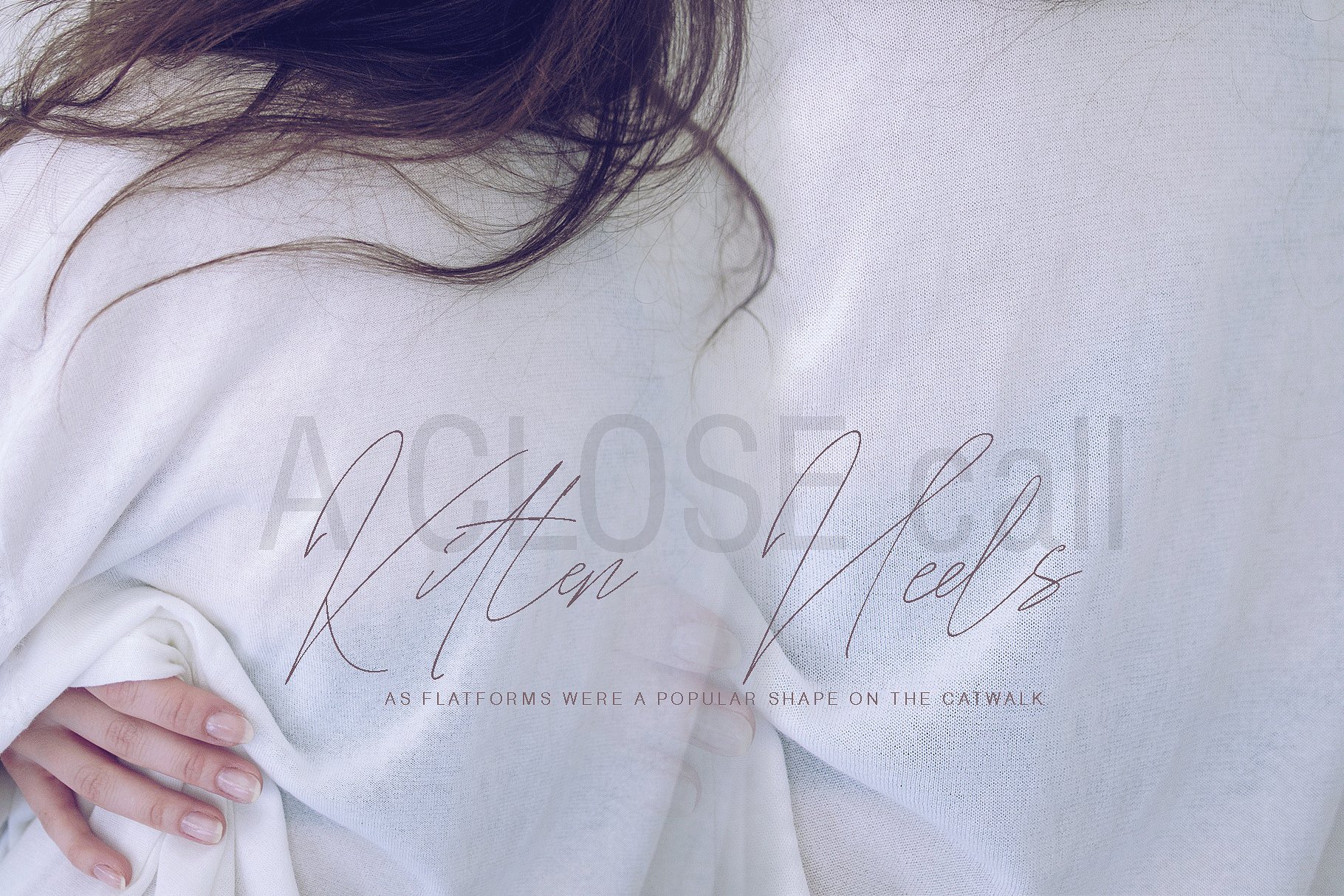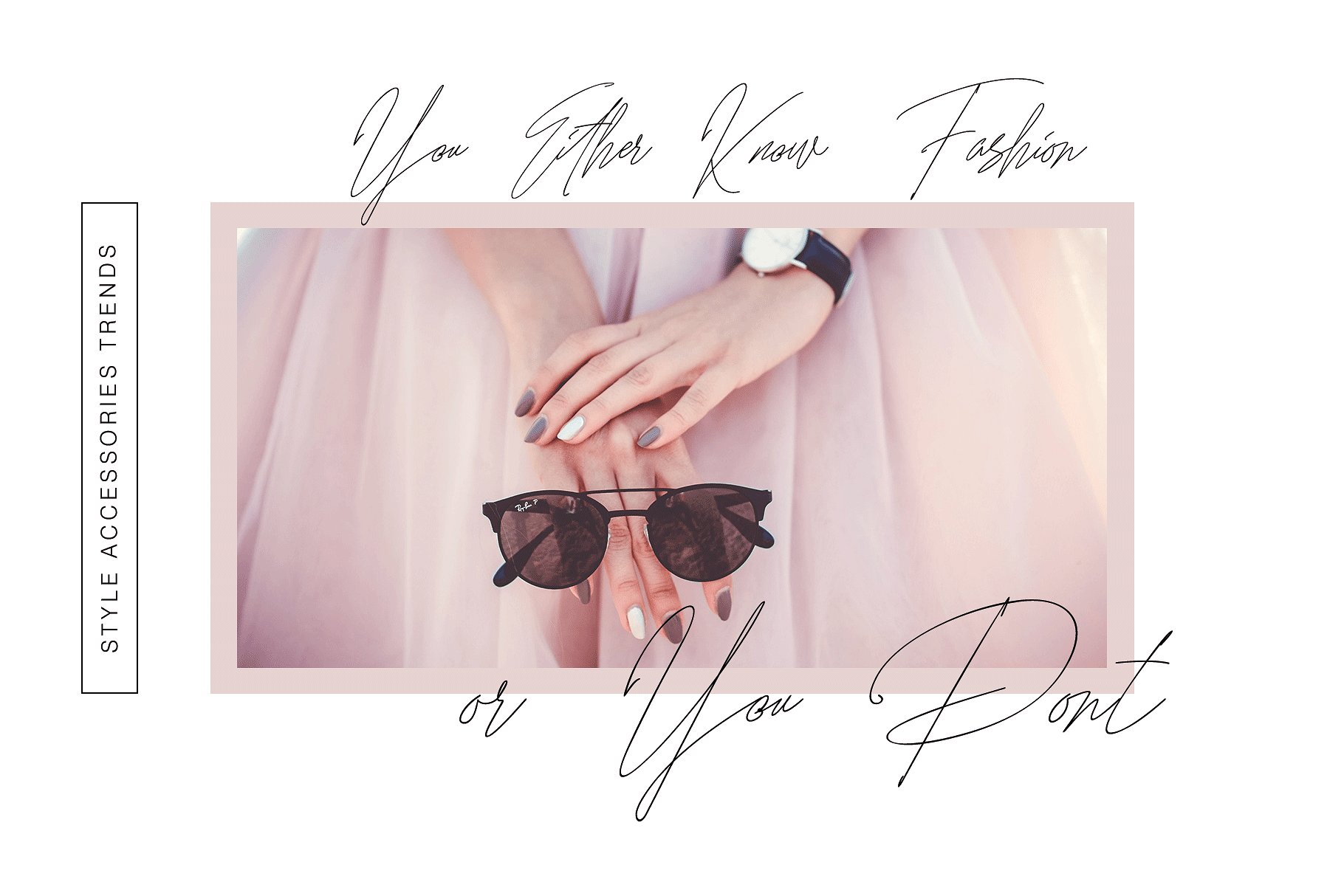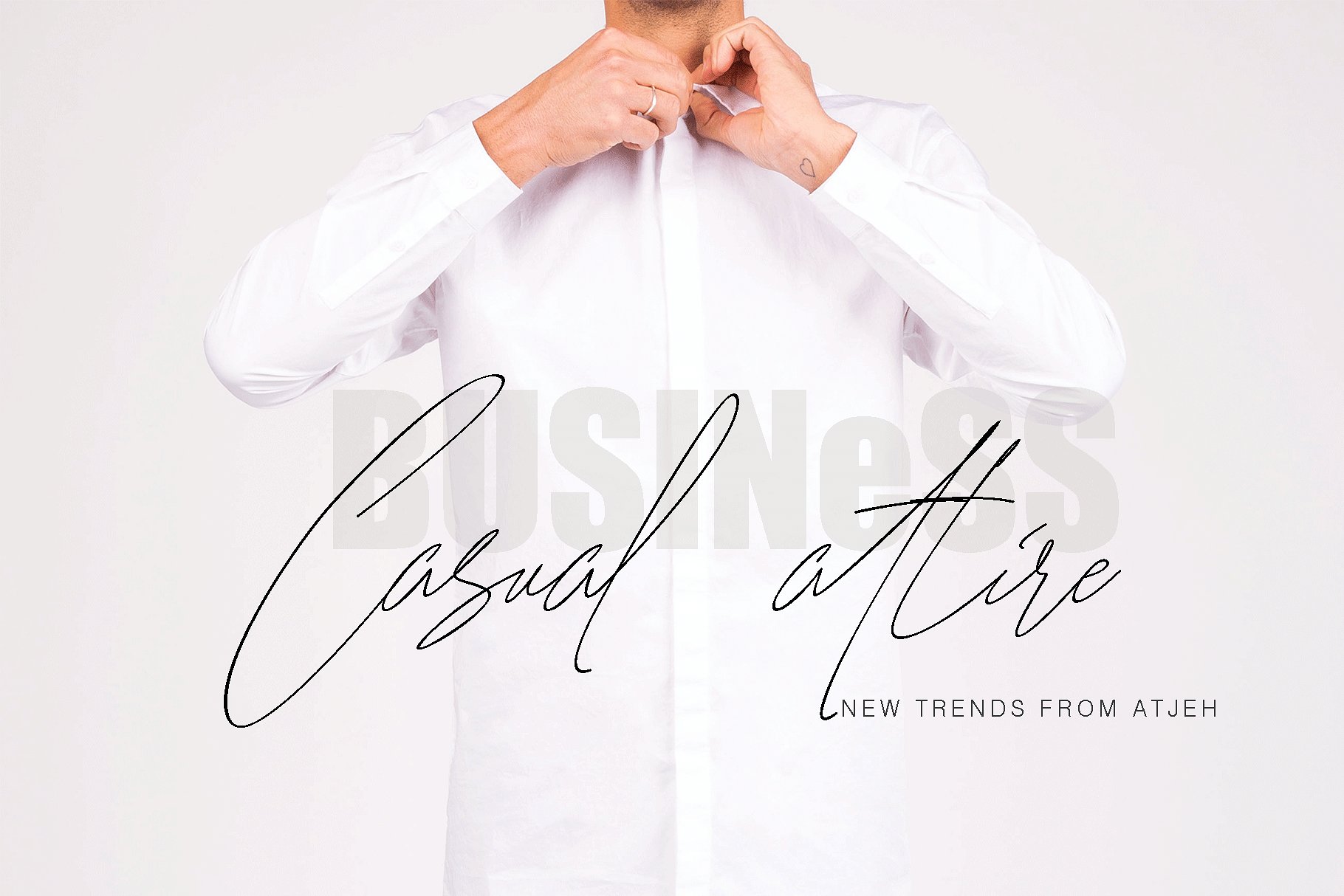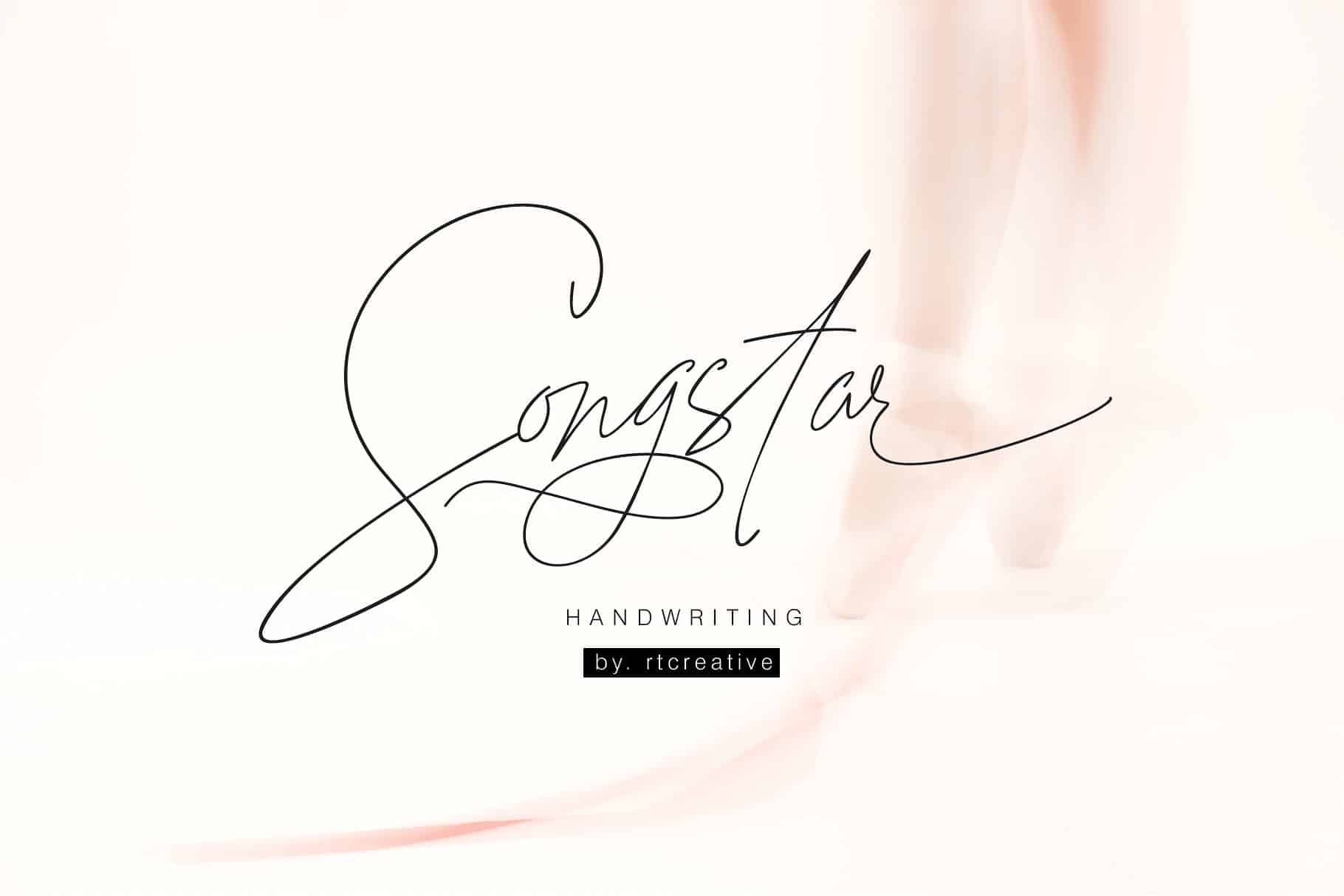
Songstar Signature Font
A work that is purely handwritten, has natural characteristics. Introducing Songstar Font. It is designed by rtcreative86. Songstar Font duo a work that is purely handwritten, has natural characteristics. this is perfect for invitations, signatures, blogs, social media, business cards, product brands.